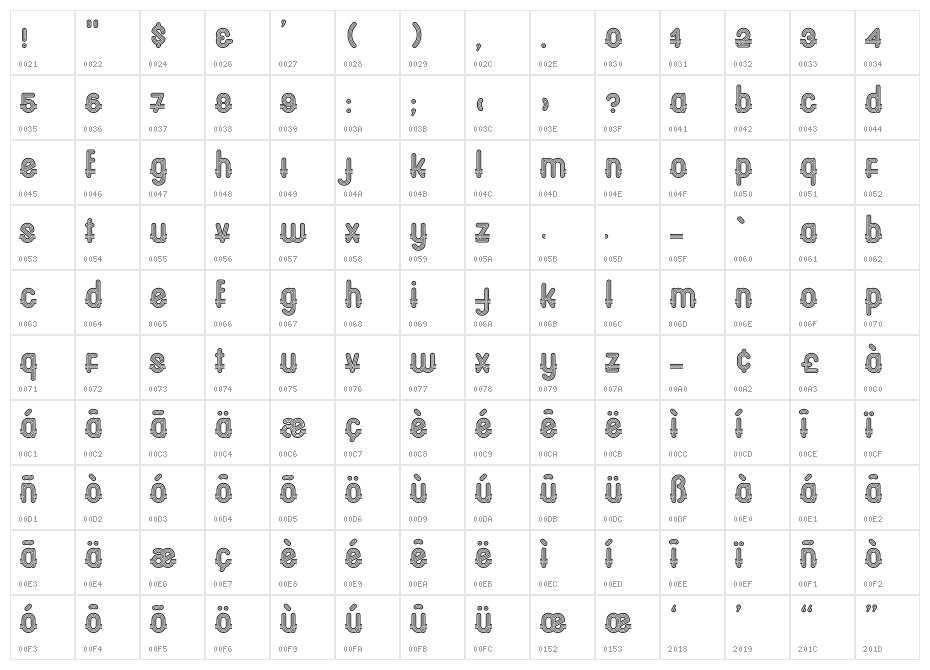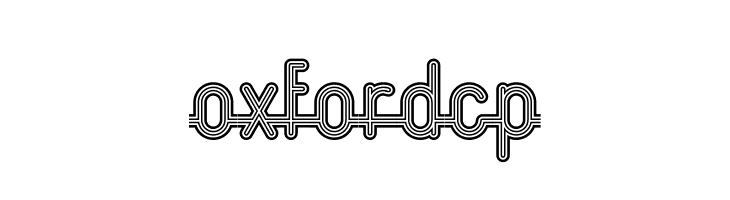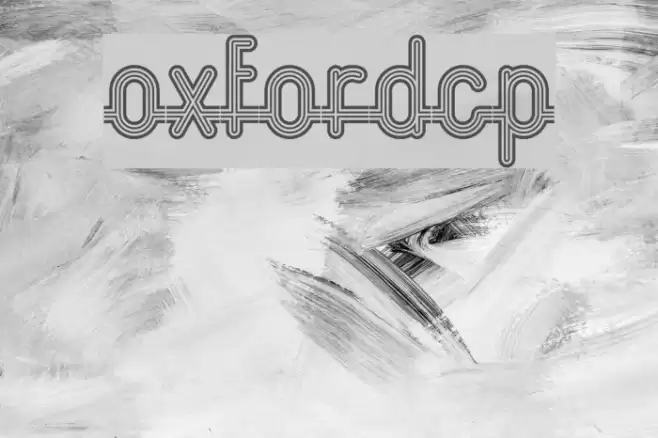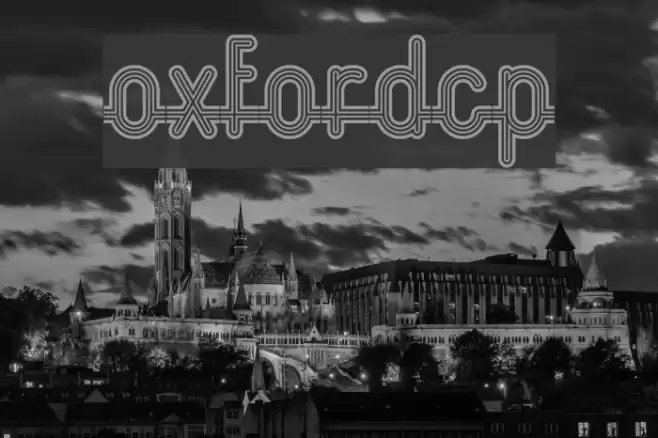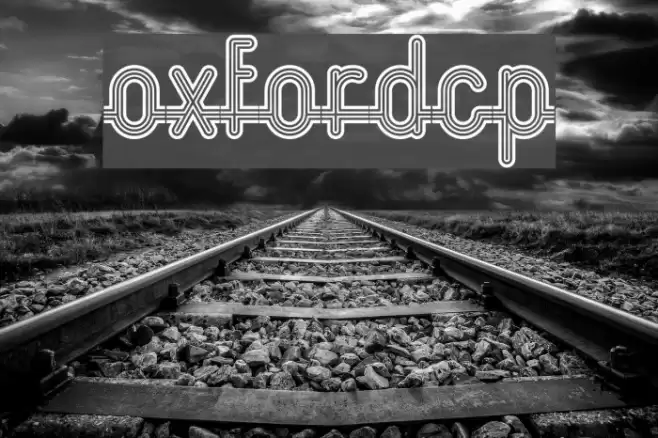
OxfordCP Font
OxfordCP Description
This font features a unique, decorative style characterized by its outlined, multi-line structure. Each character is composed of several parallel lines that create a sense of depth and complexity. The design is consistent across uppercase, lowercase, numbers, and special characters, maintaining a cohesive aesthetic. The font's intricate detailing makes it stand out, offering a modern yet slightly retro feel. Its geometric precision and bold presence make it suitable for eye-catching designs. The spacing between characters is normal, ensuring readability despite its elaborate design.
| Overall Style | Modern, Decorative |
| Proposed Projects | Ideal for branding, posters, headlines, and any project requiring a bold, decorative touch. |